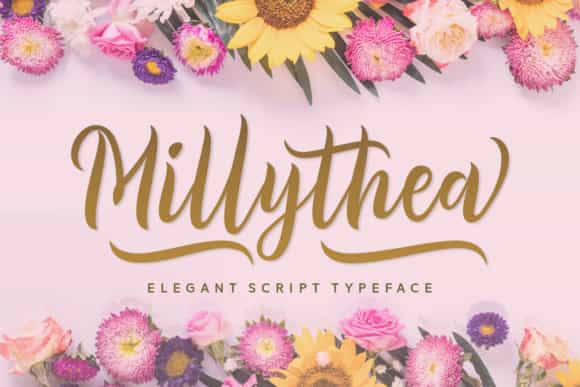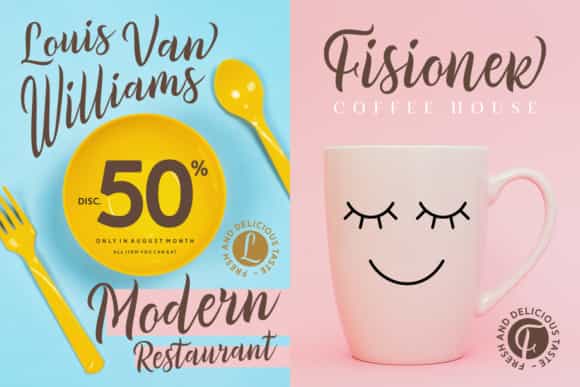
Introducing Millythea font. It is developed and posted by Situjuh. Millythea is a beautiful and cute handwritten font with a bit of a fairy tale like feel to it. It will make any design project beautiful as if it were a work of art! It is so pretty for invitations such as greeting cards, branding, business cards, quotes, posters, and many other uses.